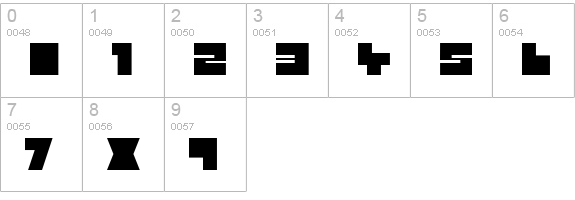
Rammstein Remix Font Details
Introducing the captivating and dynamic Rammstein Remix font, an extraordinary typeface that perfectly embodies the bold and powerful essence of Rammstein's music. This meticulously crafted font is a stunning remix of classic letterforms, infused with a modern touch, resulting in a truly unique and innovative design. Rammstein Remix font exudes a sense of strength and intensity, mirroring the raw energy and provocative nature of Rammstein's iconic songs. With its sharp edges, strong lines, and distinctive shapes, this font conveys a commanding presence that demands attention. Each character is meticulously crafted to ensure legibility and readability, even at smaller sizes, making it suitable for a wide range of design projects. What makes Rammstein Remix font even more remarkable is that it is freely available to download at FontsMarket.com. This means that designers, artists, and Rammstein enthusiasts alike can easily access this exceptional font and incorporate it into their creative endeavors without any hassle. Whether you're designing album covers, posters, merchandise, or any other visual representation of Rammstein's powerful music, this font is a must-have resource. With its versatility and striking aesthetics, Rammstein Remix font allows you to unleash your creativity and add a touch of Rammstein's spirit to your designs. It is the perfect choice for those seeking to make a bold statement and leave a lasting impression. So, don't miss out on this incredible opportunity to enhance your projects with Rammstein Remix font – download it for free today at FontsMarket.com and let your creativity ignite!